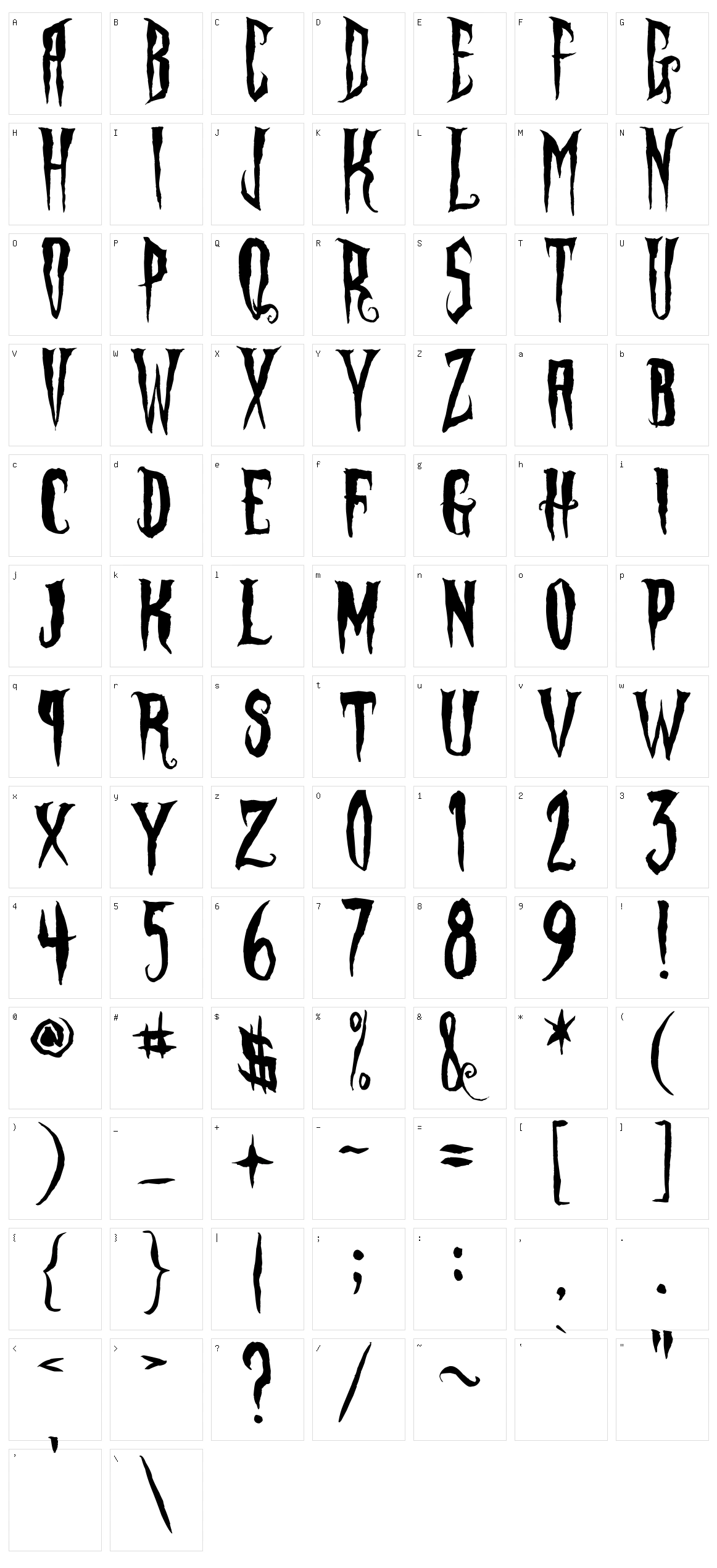
Phantom Fingers Font by Chad Savage
Created 2016, hand-lettered.
This font is intended for specialty and graphic uses. It will look just awful if used in a paragraph format.